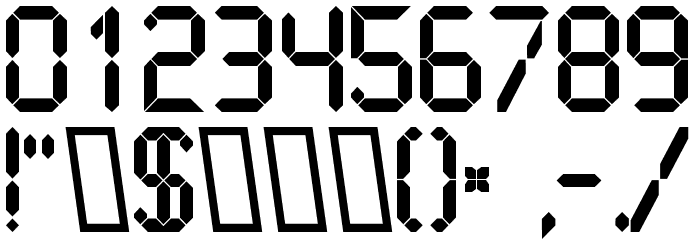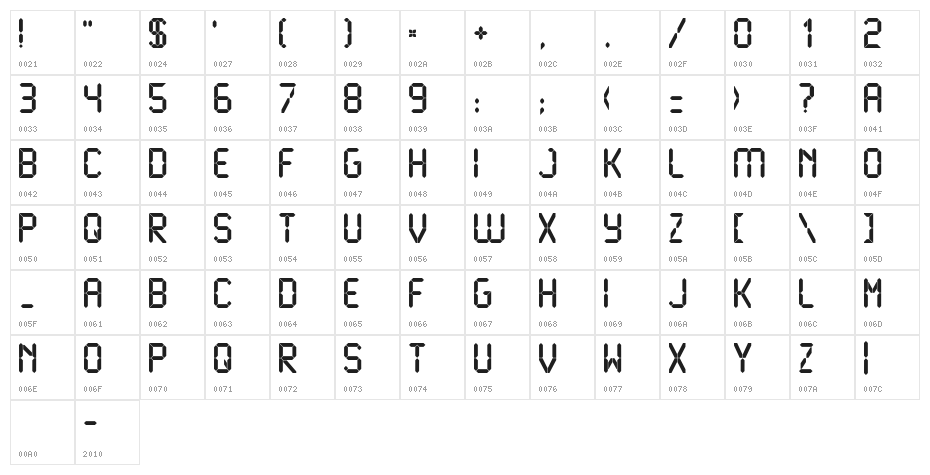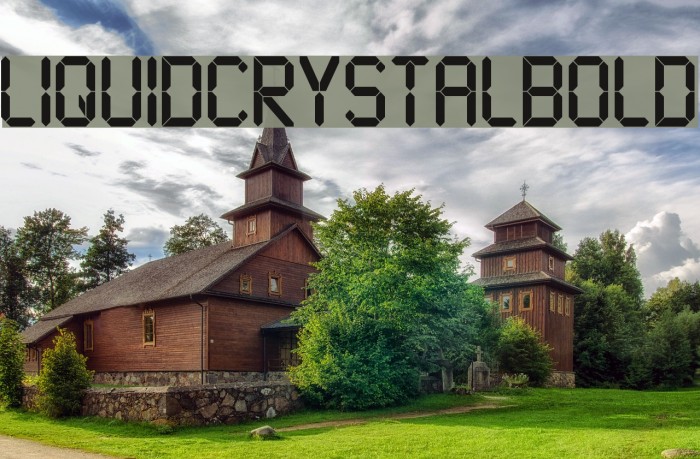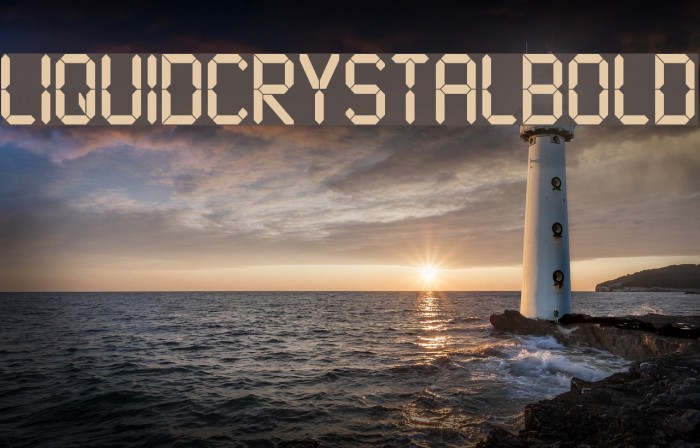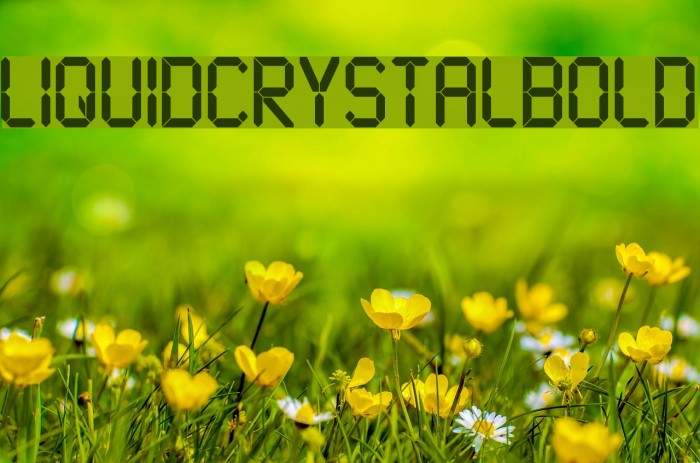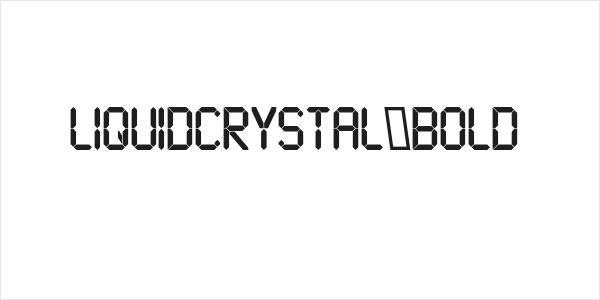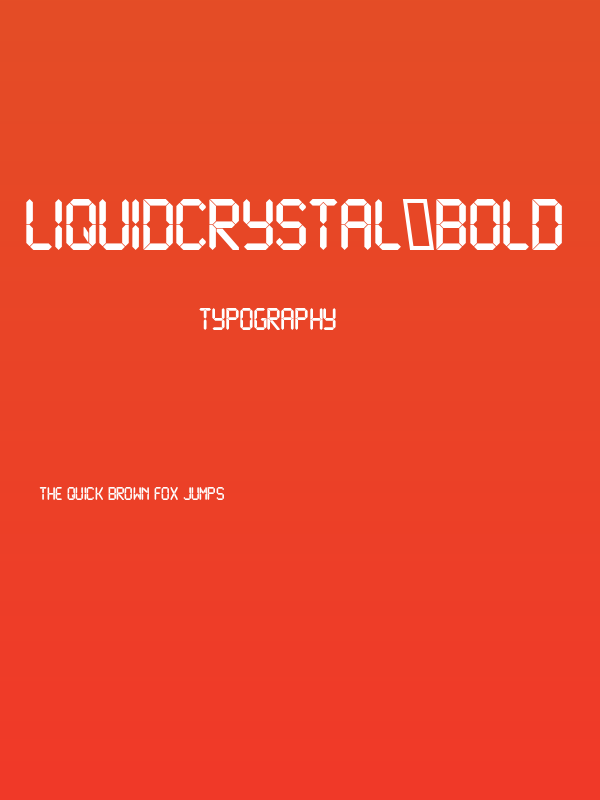
LiquidCrystal-Bold Font
LiquidCrystal-Bold Description
This font features a distinctive digital, segmented style reminiscent of old LCD displays. Each character is composed of geometric segments, creating a futuristic and technological appearance. The uppercase and lowercase letters maintain a consistent height, emphasizing uniformity and precision. The numerals and special characters follow the same segmented design, ensuring a cohesive look across all elements. This font is ideal for projects that require a retro or digital aesthetic, offering a bold and striking visual impact.
| Overall Style | Modern, Retro |
| Use Case | Headlines, Logos, Digital Displays |
| Proposed Projects | Ideal for digital-themed designs, retro tech projects, electronic displays, and futuristic branding. |